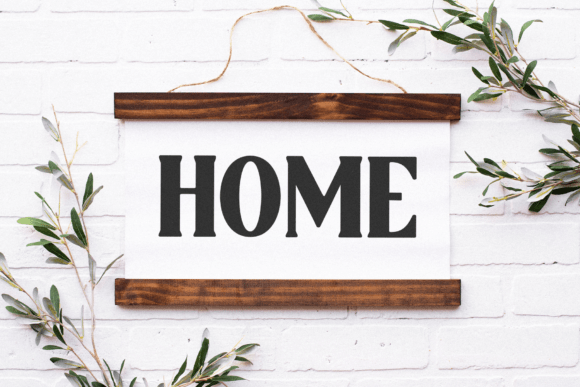
Front Porch Font
Front Porch is a rustic serif font that is perfect for all of your farmhouse crafts. This font will add charm to any welcome sign, family sign or doormat. Front Porch is a wonderful addition for creating logos, shirts, mugs, hats, signs and more! This serif has a country rustic look but it is clean and cuts well.